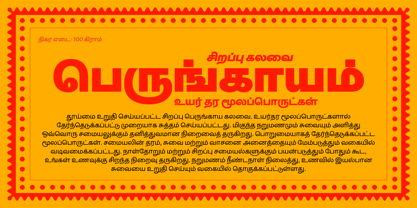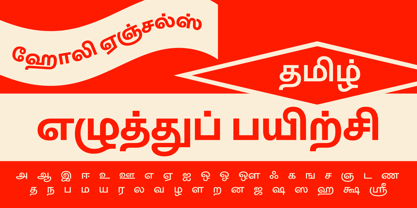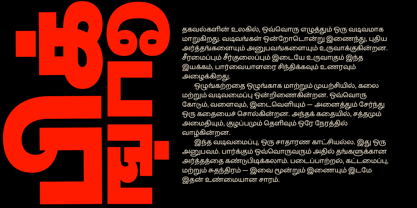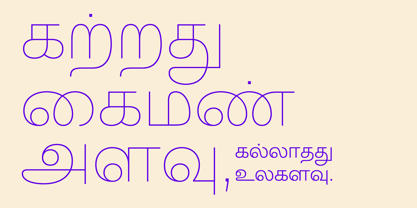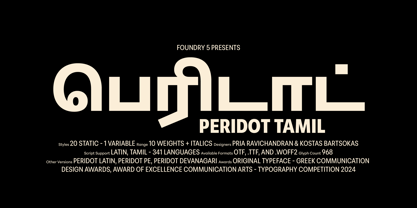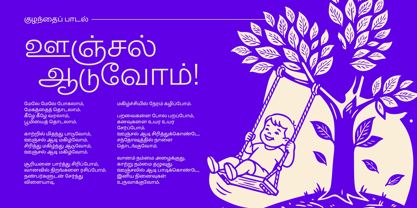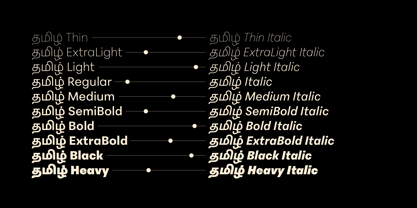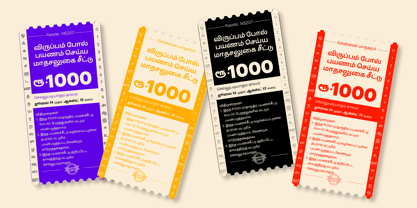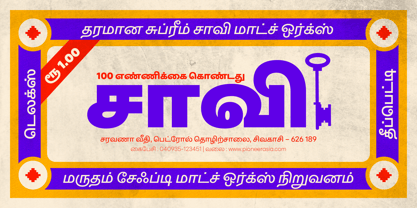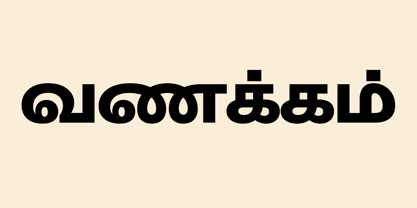
Peridot Tamil
by Foundry5
The Peridot Tamil Font Family was designed by Kostas Bartsokas, Pria Ravichandran and published by Foundry5. Peridot Tamil contains 21 styles and family package options.
Mesmerised by the sparkling greenish-yellow mineral called Olivine hidden within the black basalt of Lanzarote's lava fields, we named the gem of our library after this natural beauty. Peridot is not just another typeface – it's a multifaceted sans serif type system crafted with passion and precision by Foundry5. Painstakingly developed through long hours and a keen focus on every minute detail, this typeface boasts a high-quality 10 weight family with matching italics in 6 widths, and the highly versatile variable format. Brimming with character, Peridot invites you to experiment with its various stylistic variants, allowing you to tailor the typographic tone to fit your creative vision perfectly. The diverse range of widths and styles in Peridot offers a dynamic typographic toolbox, ready to inspire and captivate even the most innovative designers. Peridot Tamil supports Tamil and Latin scripts and covers over 330 languages. It includes all required localized variants, tabular numerals and currencies, fractions, clever discretionary ligatures, and many more features. Peridot performs in varied environments – from branding, display, corporate use, editorial, advertising, poster, web, screen usage etc. Think of any other use case as well, and Peridot will perform. Peridot Tamil comprises 20 static fonts, family package, and variable support. It is the gem you ought to have in your collection.